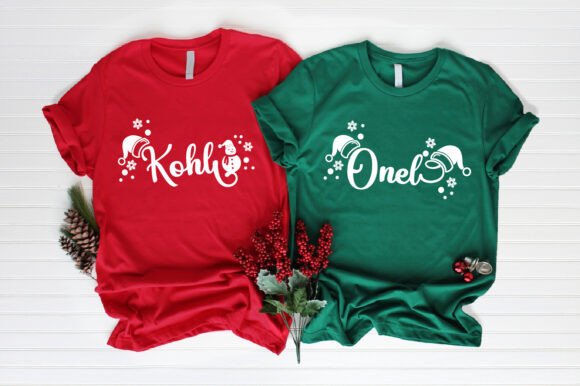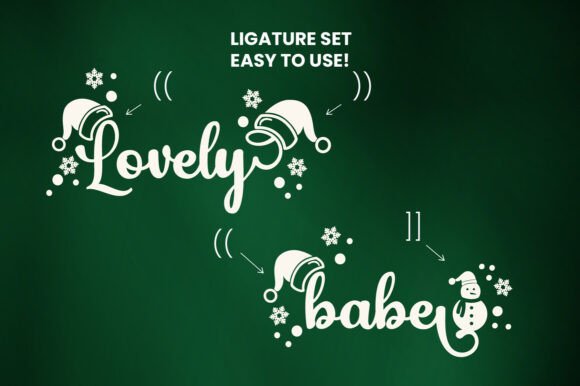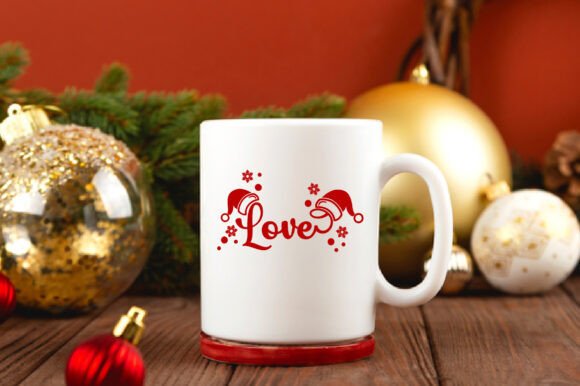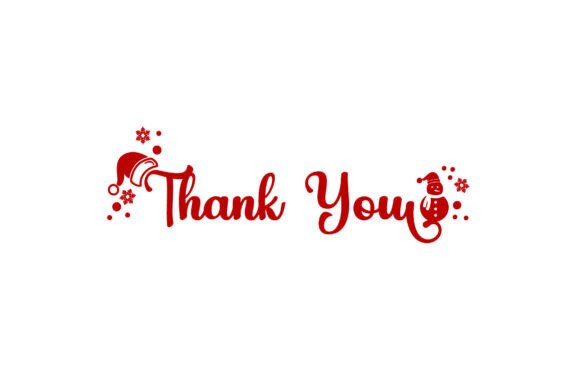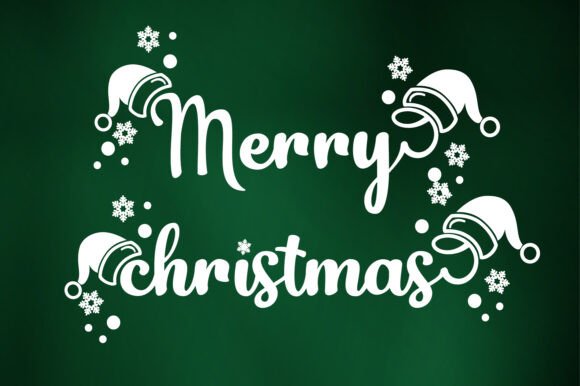
Christmas is Coming Font: The Ultimate Festive Decorative Script for Holiday Designs
Are you looking for a font that captures the essence of the holiday season? Look no further than the Christmas is Coming Font! This festive decorative script is perfect for adding a touch of holiday cheer to your designs, whether you’re creating Christmas cards, t-shirts, posters, or gifts. With its playful swirls, snowflakes, and Santa hats, this font is sure to evoke joy and warmth in anyone who sees it.
What Makes Christmas is Coming Font So Special?
Christmas is Coming Font is a unique and eye-catching decorative script that is specifically designed for holiday designs. Its playful and festive features make it perfect for a wide range of applications, from Christmas cards and invitations to t-shirts, posters, and gifts. The font’s design is carefully crafted to evoke the magic and wonder of the holiday season, making it an ideal choice for designers and crafters who want to create festive and engaging designs.
Key Features of Christmas is Coming Font
- Playful Swirls: The font features playful swirls that add a touch of whimsy and fun to your designs.
- Snowflakes: Delicate snowflakes are intricately designed into the font, giving it a festive and wintry feel.
- Santa Hats: The font also features Santa hats, which add a touch of humor and playfulness to your designs.
- Decorative Script: The font is designed as a decorative script, making it perfect for headlines, titles, and other display text.
Uses for Christmas is Coming Font
Christmas is Coming Font is a versatile font that can be used for a wide range of holiday designs, including:
- Christmas Cards: Create festive and personalized Christmas cards for your loved ones.
- T-Shirts: Design fun and festive t-shirts for the holiday season.
- Posters: Create eye-catching posters for holiday events, sales, and promotions.
- Gifts: Add a personal touch to your gifts with festive labels, tags, and wrapping paper.
Why Choose Christmas is Coming Font?
There are many fonts to choose from, but Christmas is Coming Font stands out for its unique and festive design. Here are just a few reasons why you should choose this font for your holiday designs:
- Evokes Joy and Warmth: The font’s playful and festive design is sure to evoke joy and warmth in anyone who sees it.
- Perfect for Seasonal Projects: The font is specifically designed for holiday designs, making it perfect for seasonal projects.
- High-Quality Design: The font is designed to high standards, ensuring that it looks great in any design.
Tips for Using Christmas is Coming Font
Here are a few tips for using Christmas is Coming Font in your holiday designs:
- Use it as a Headline Font: The font is perfect for headlines and titles, so use it to grab attention and add a touch of festive flair to your designs.
- Experiment with Colors: The font looks great in a range of colors, so experiment with different colors to find the one that works best for your design.
- Pair it with Other Fonts: The font can be paired with other fonts to create a unique and eye-catching design.
Christmas is Coming Font is a festive and decorative script that is perfect for holiday designs. With its playful swirls, snowflakes, and Santa hats, this font is sure to evoke joy and warmth in anyone who sees it. Whether you’re creating Christmas cards, t-shirts, posters, or gifts, this font is an ideal choice. So why not give it a try and add a touch of festive flair to your holiday designs?